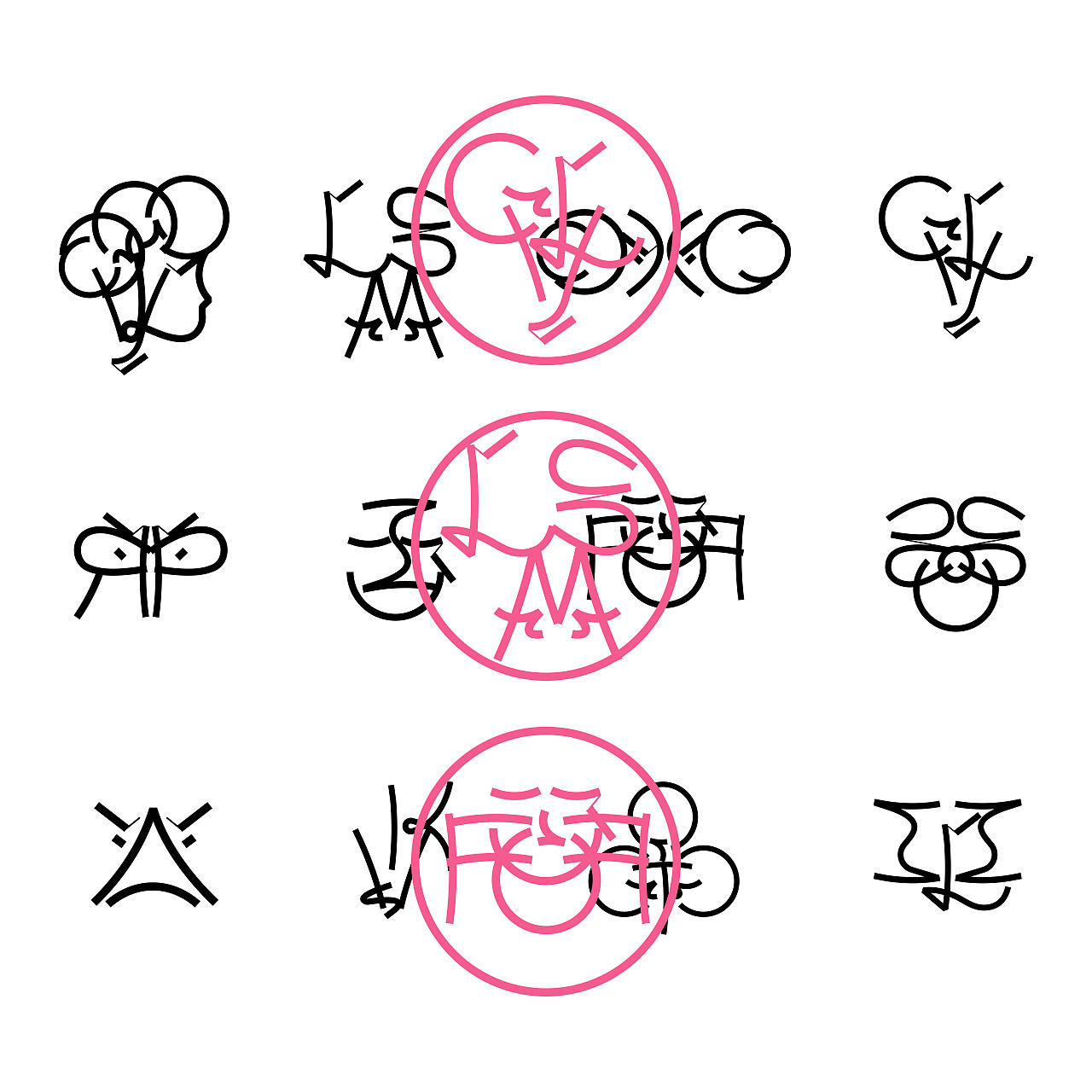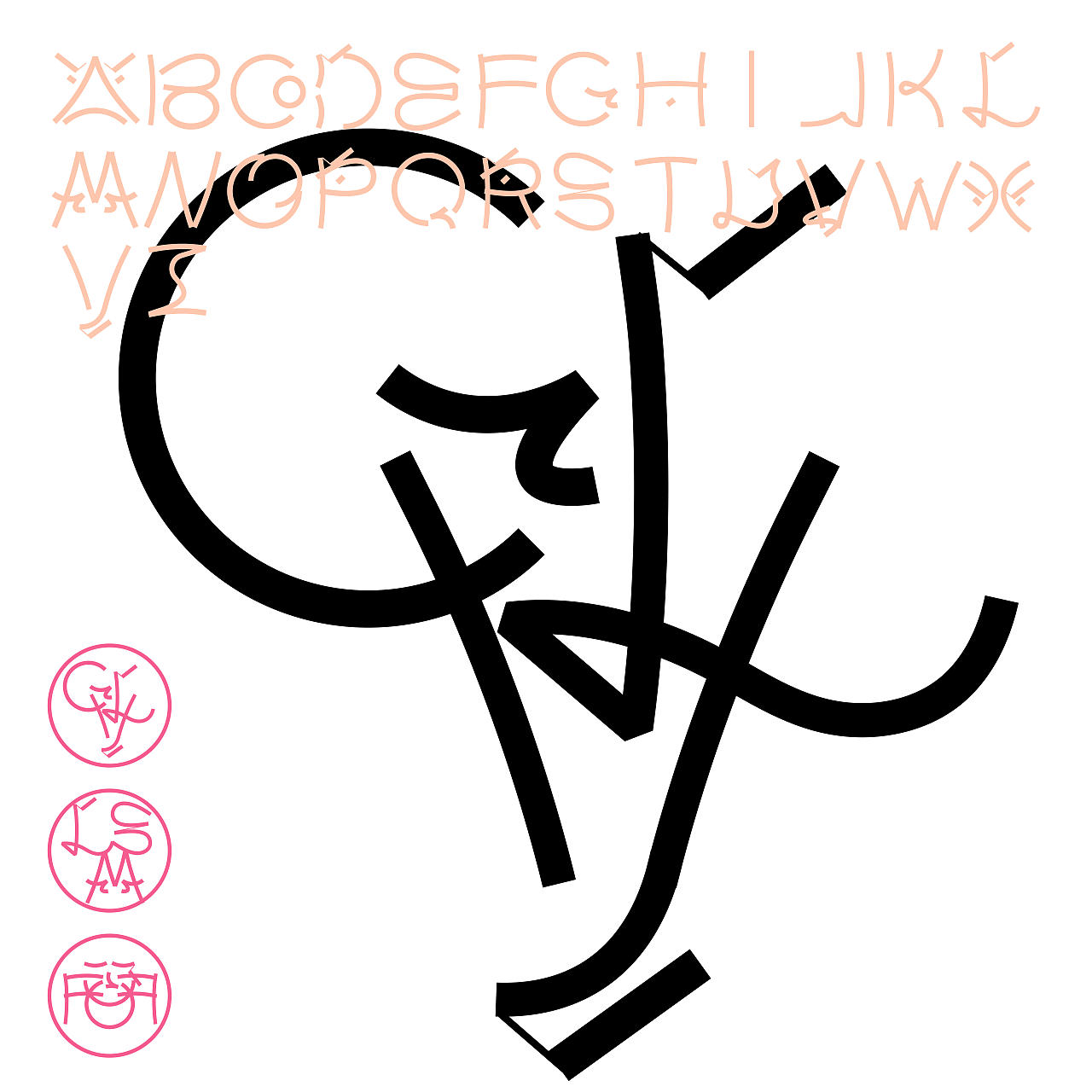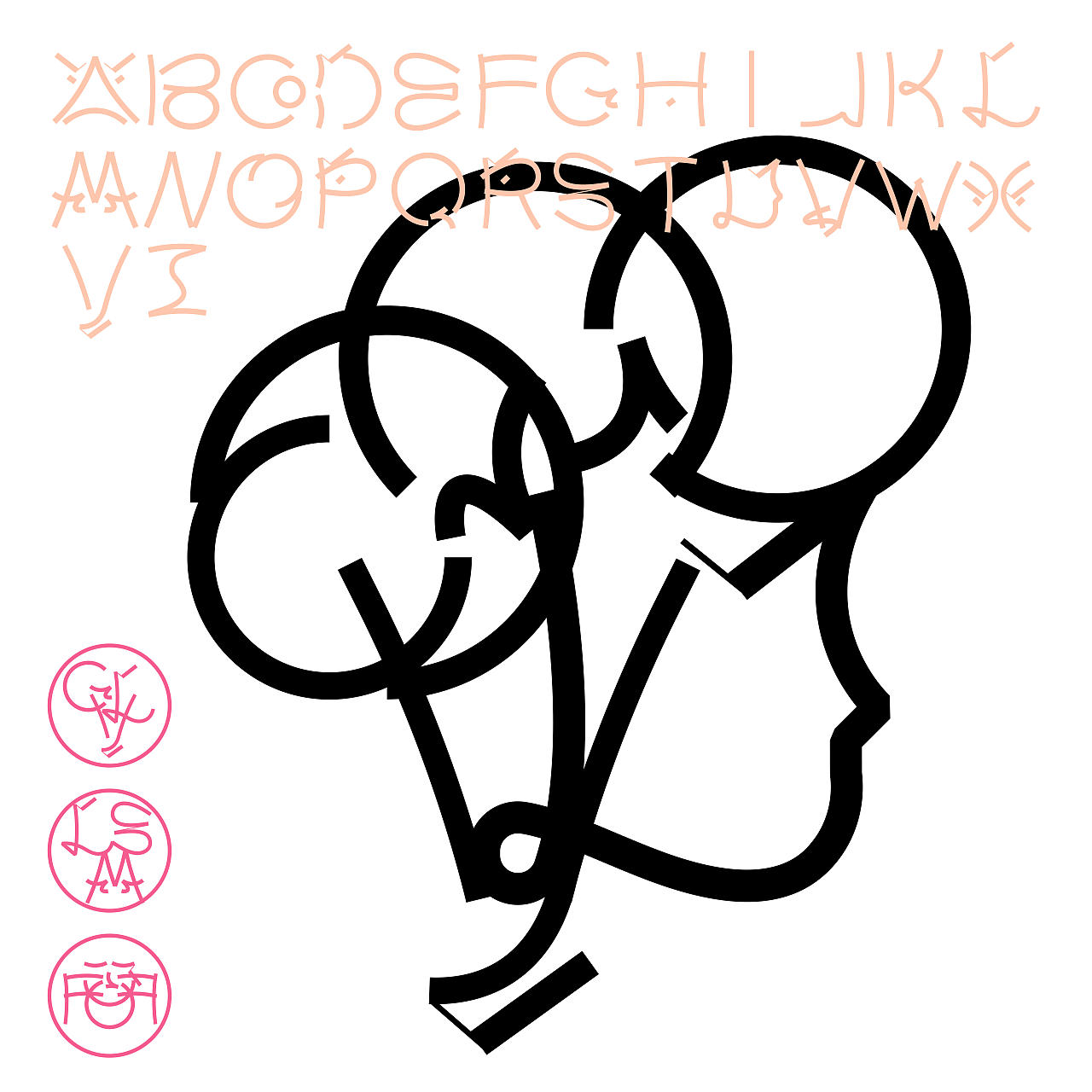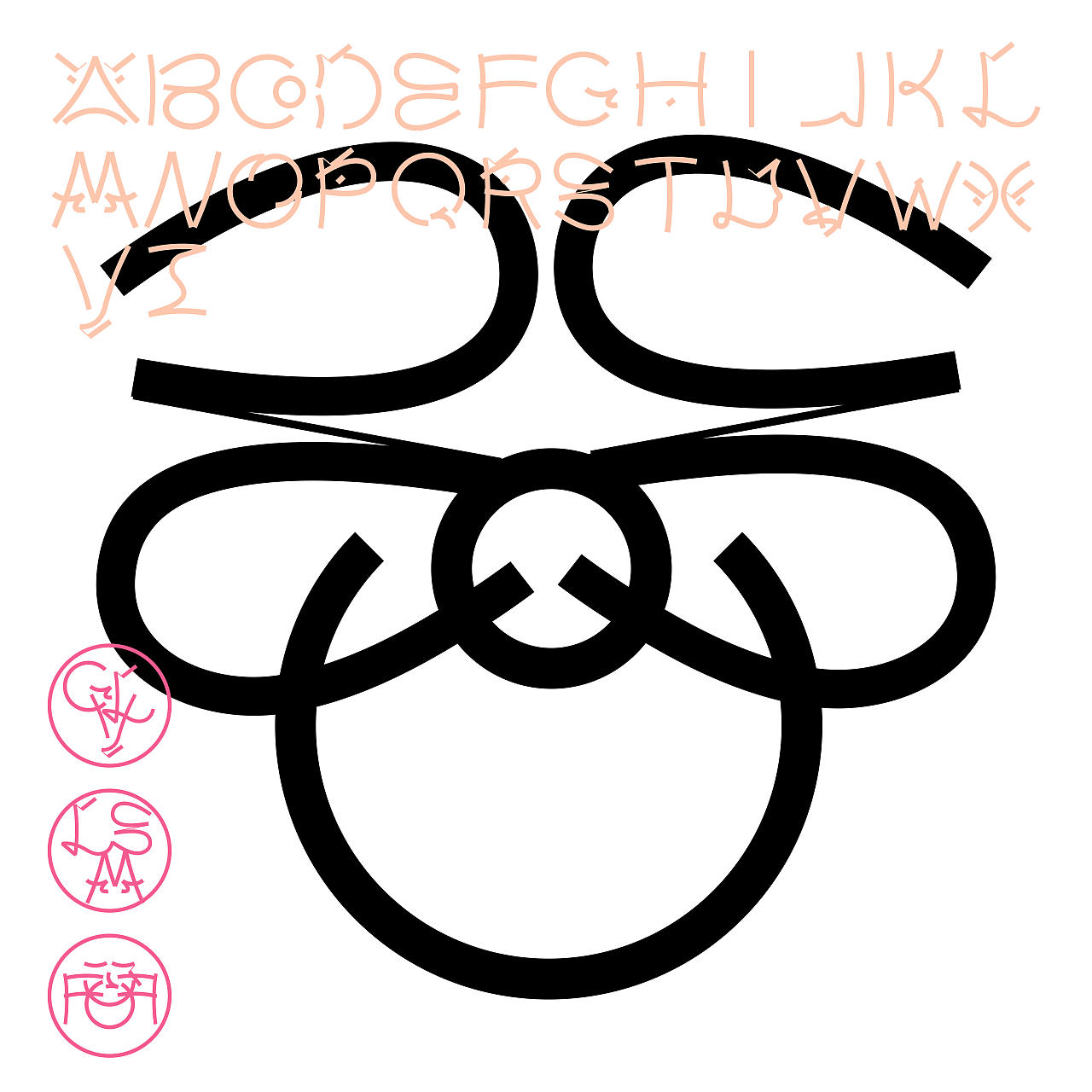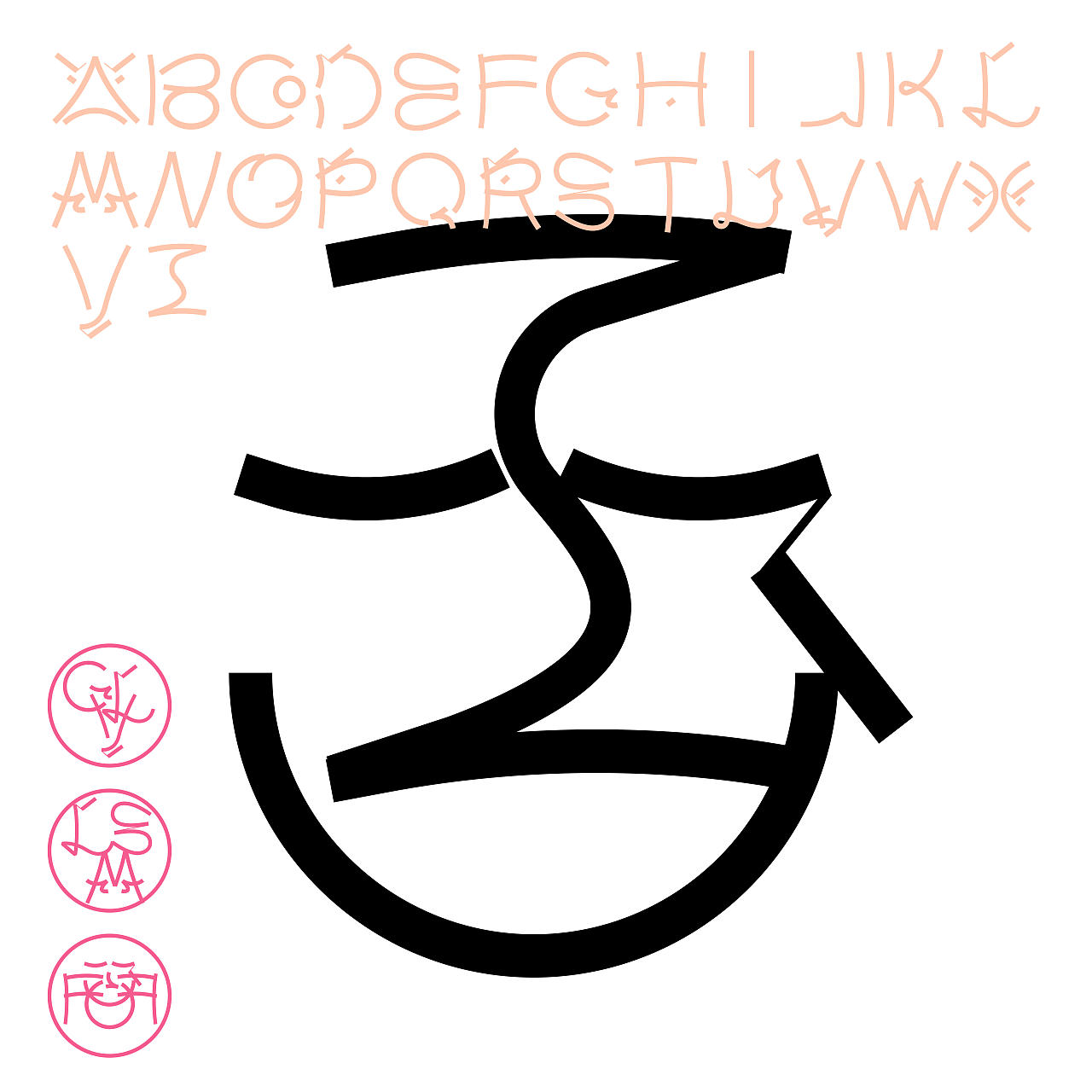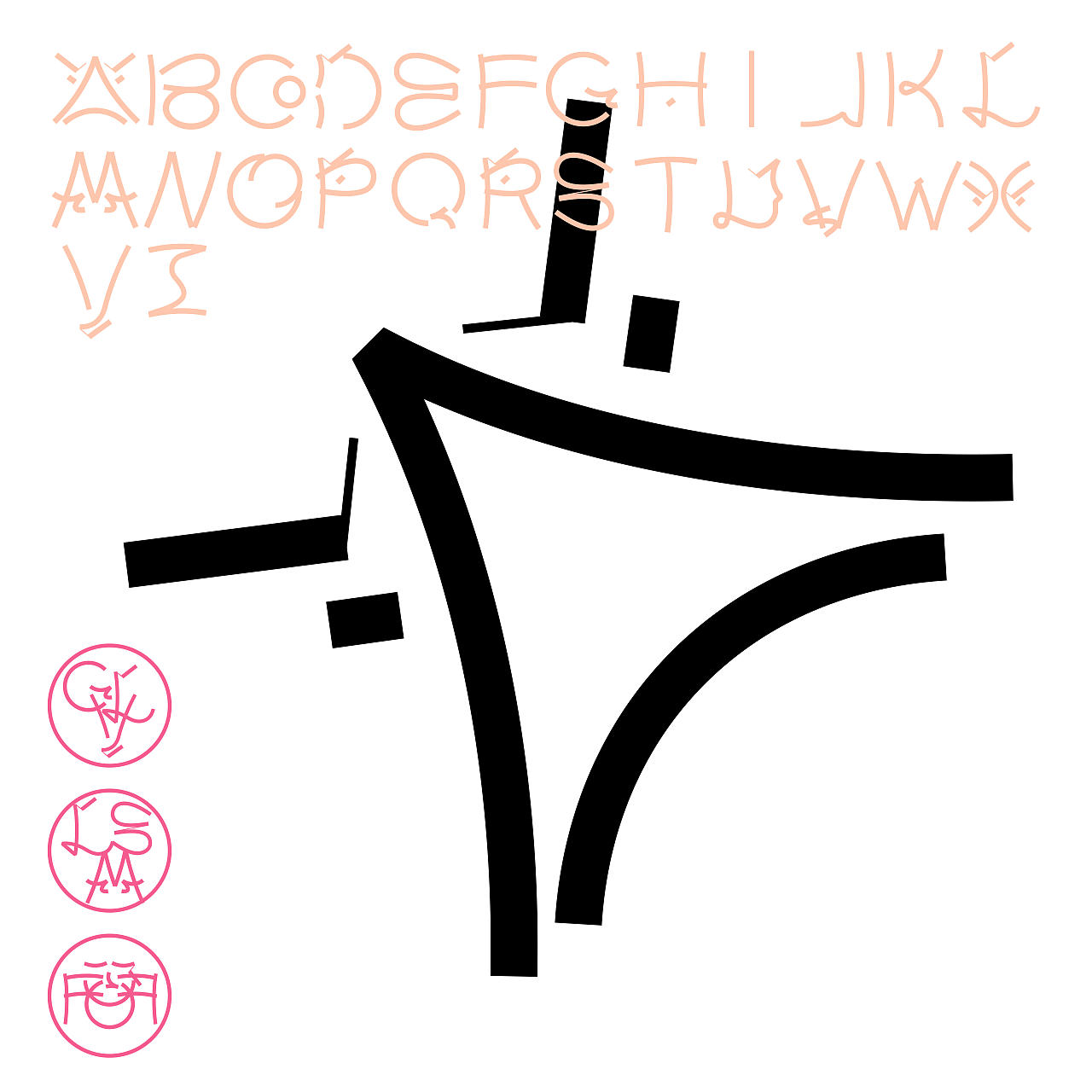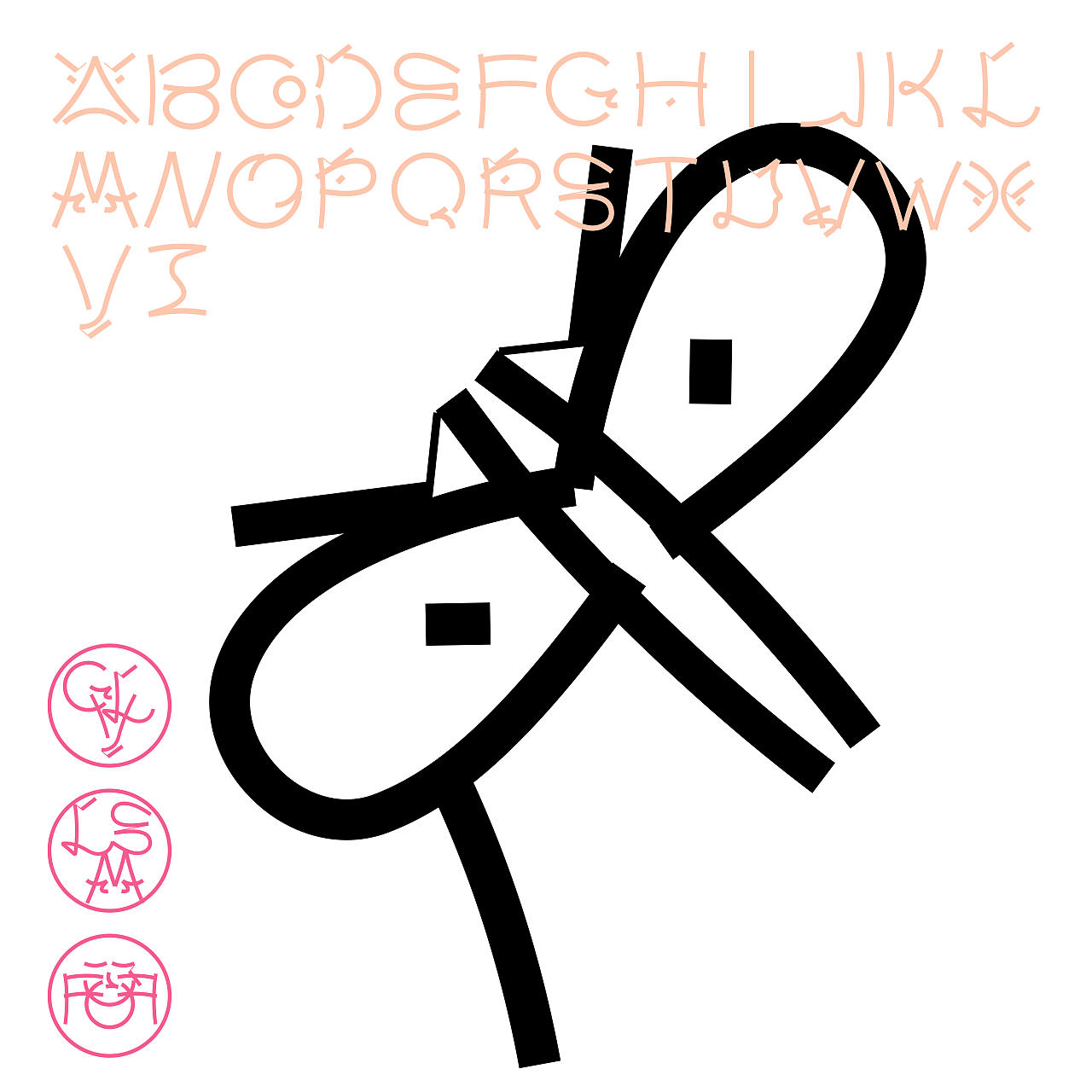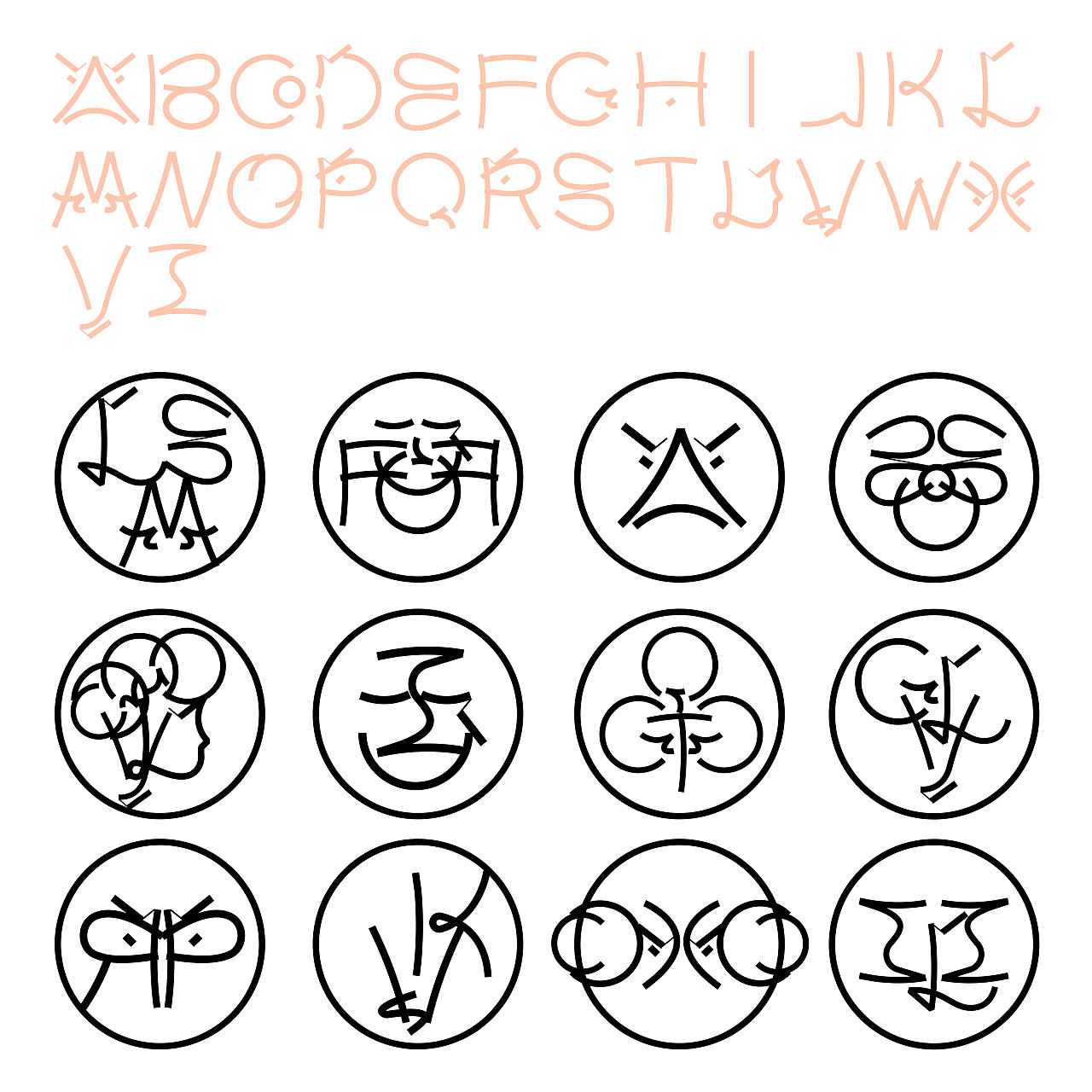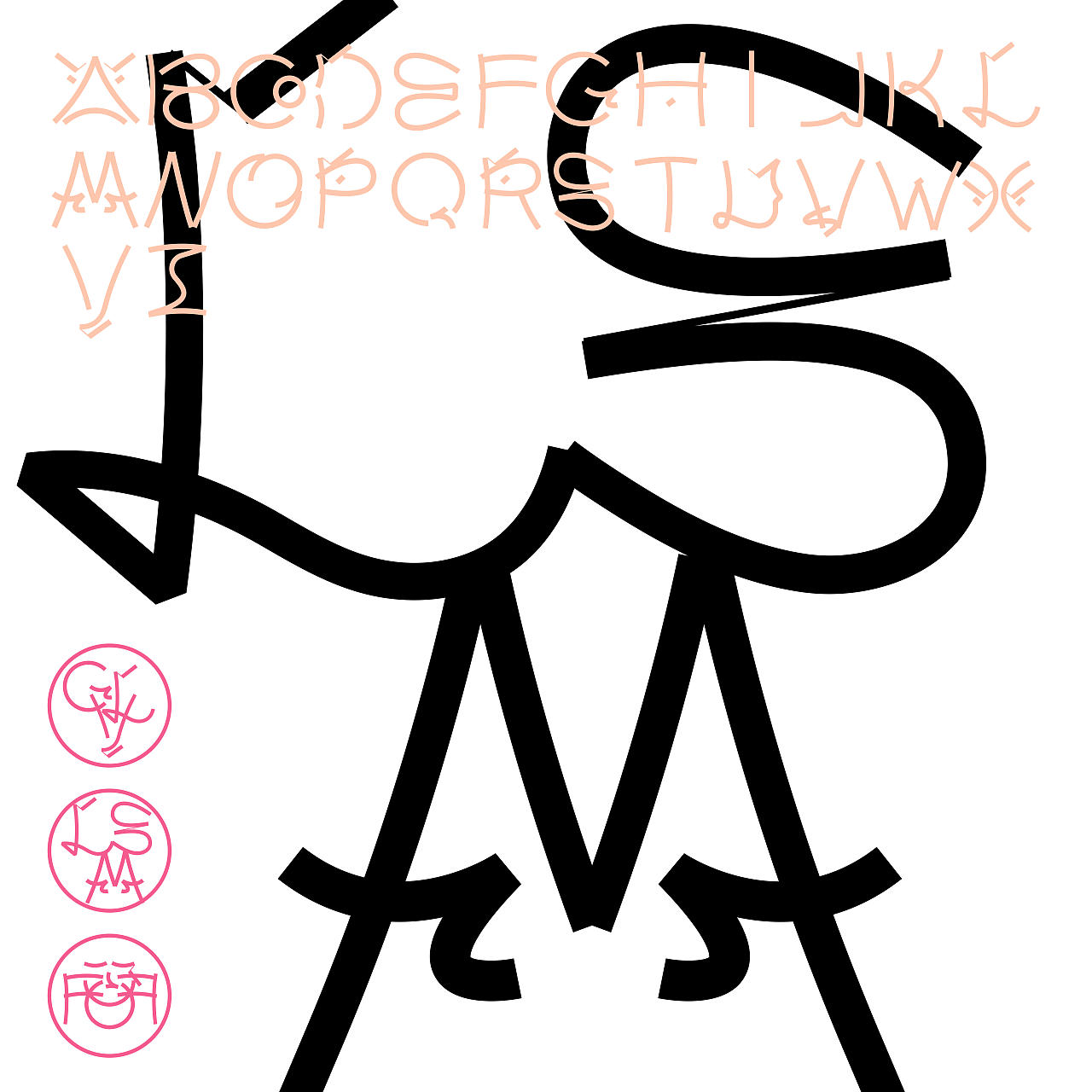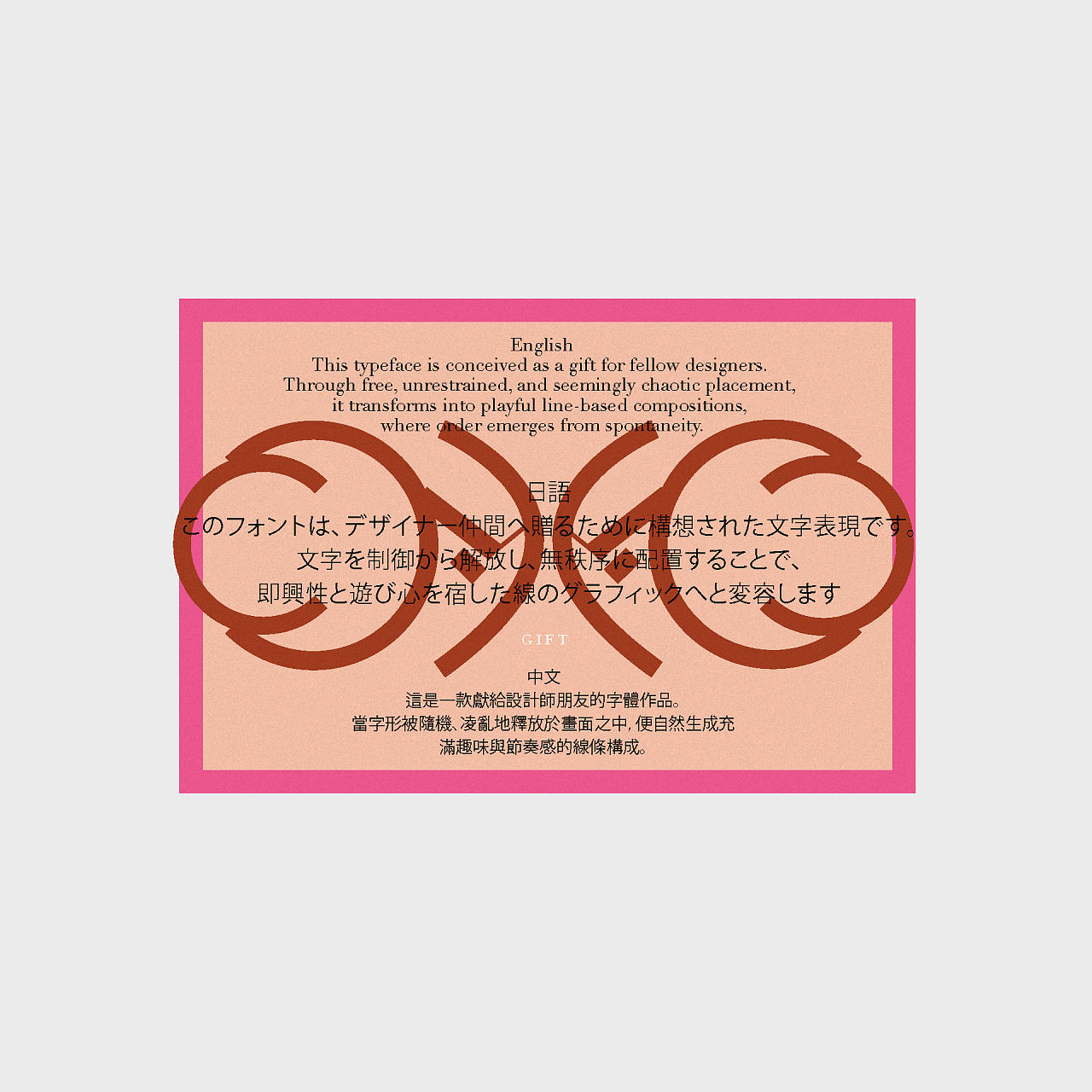
A Typeface as a Gift
This typeface is conceived as a gift for fellow designers.
Through free, unrestrained, and seemingly chaotic placement,
it transforms into playful line-based compositions,
where order emerges from spontaneity.
這是一款獻給設計師朋友的字體作品。
當字形被隨機、凌亂地釋放於畫面之中,便自然生成充
滿趣味與節奏感的線條構成。